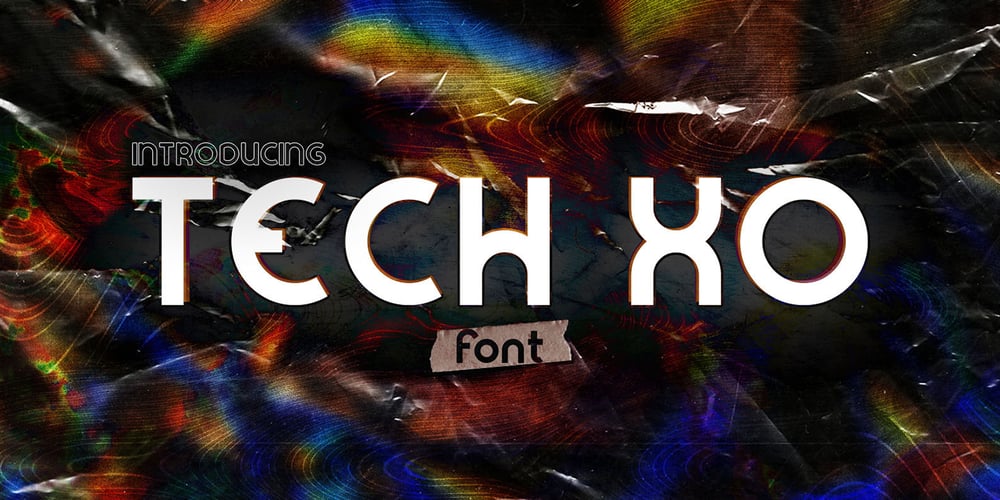
Tech XO Font Family was designed by Mohammed Lamjidi and published by Beast Designer. Tech XO contains 1 styles and family package options. Tech XO Font is a futuristic and daring display font that will make any sci-fi theme design project come alive!It’s suitable for alien adventures and hi-tech presentations.